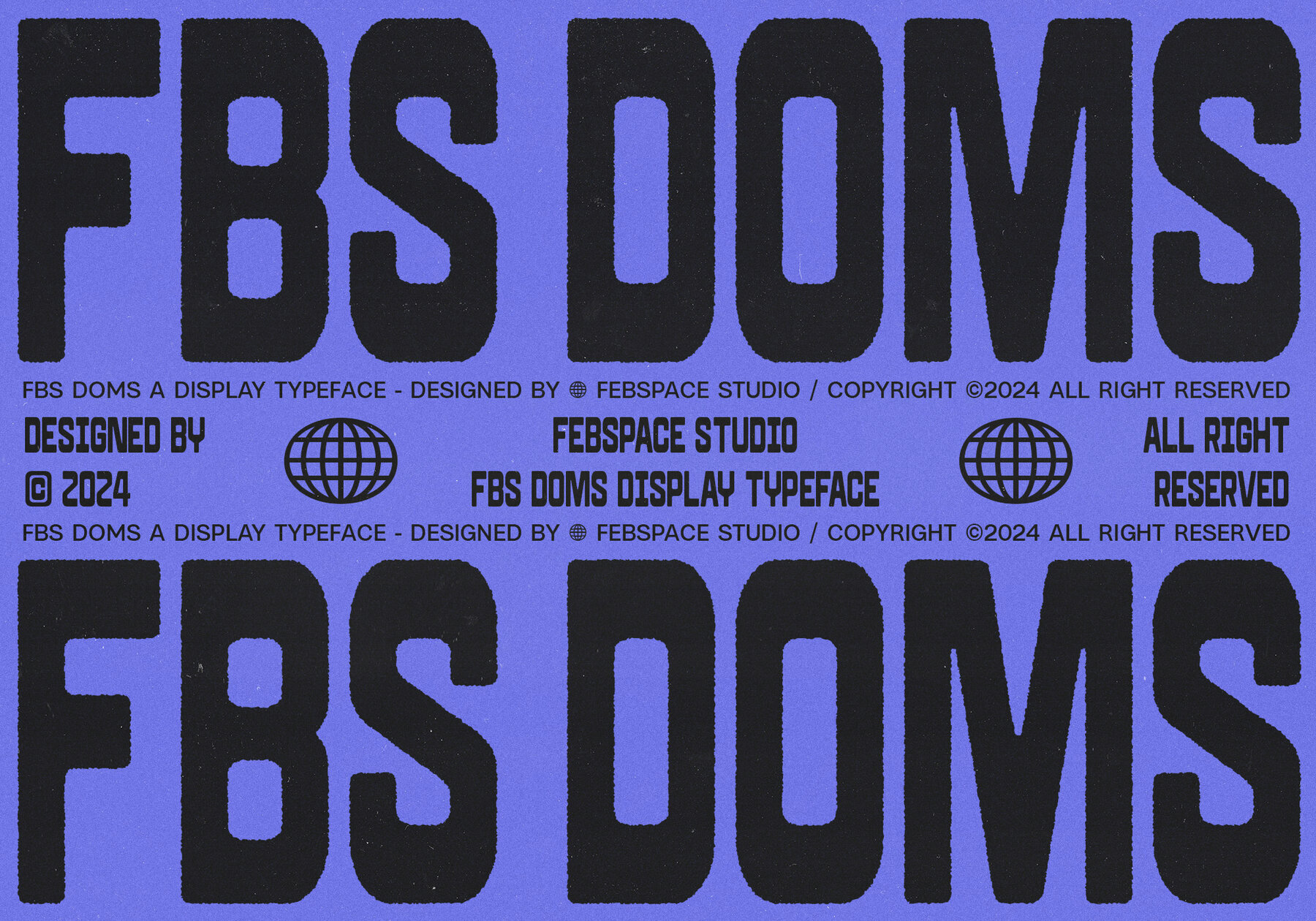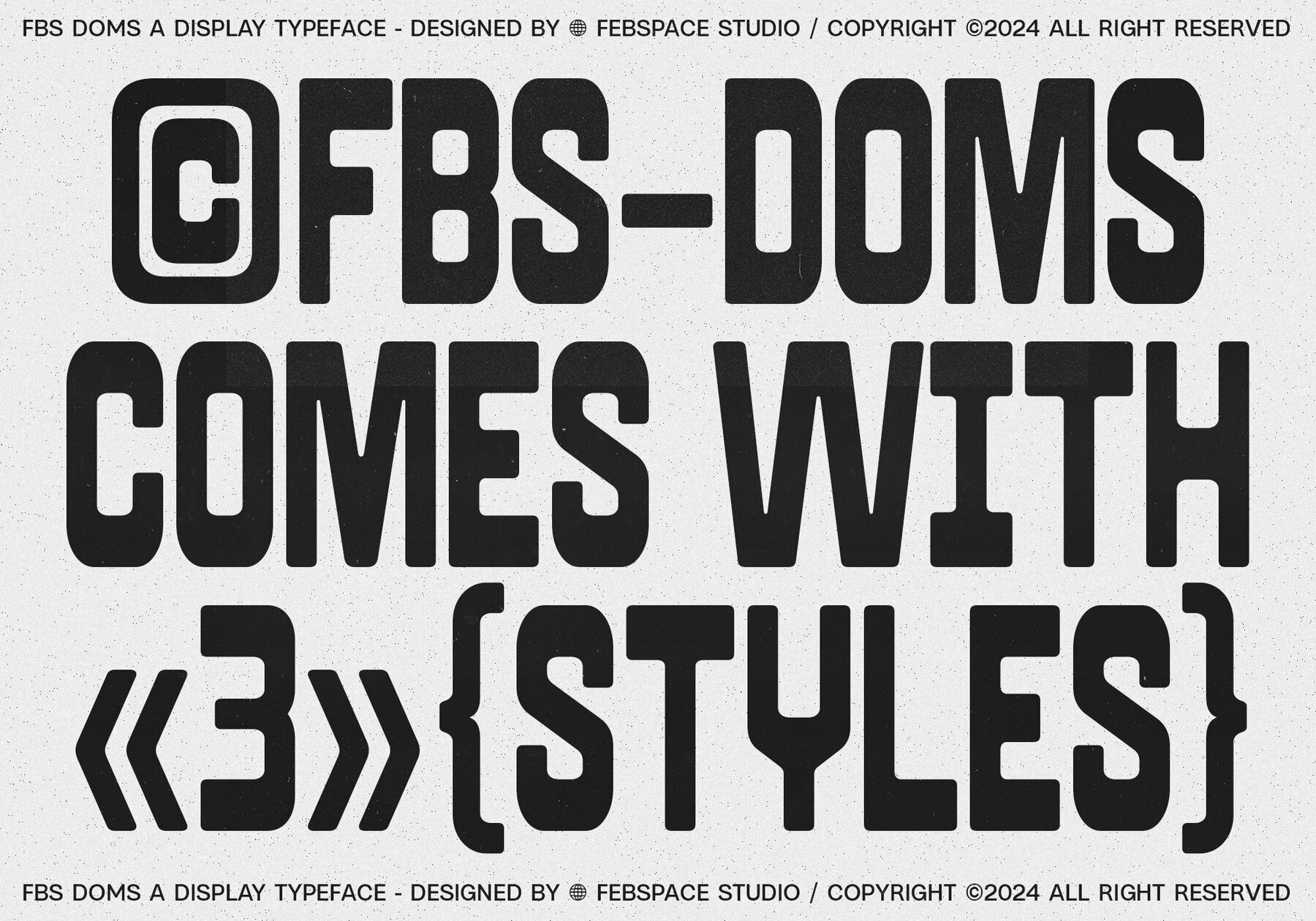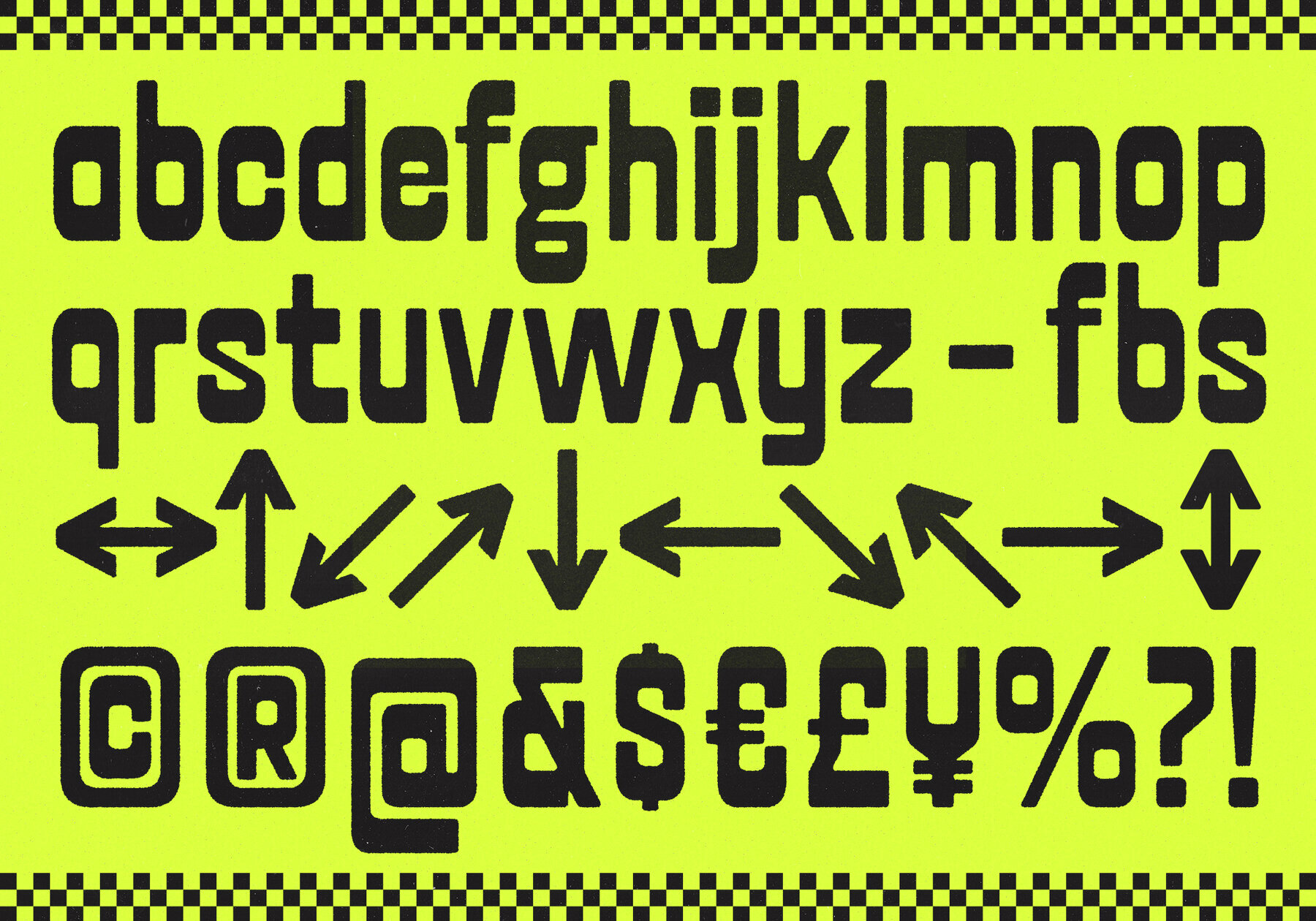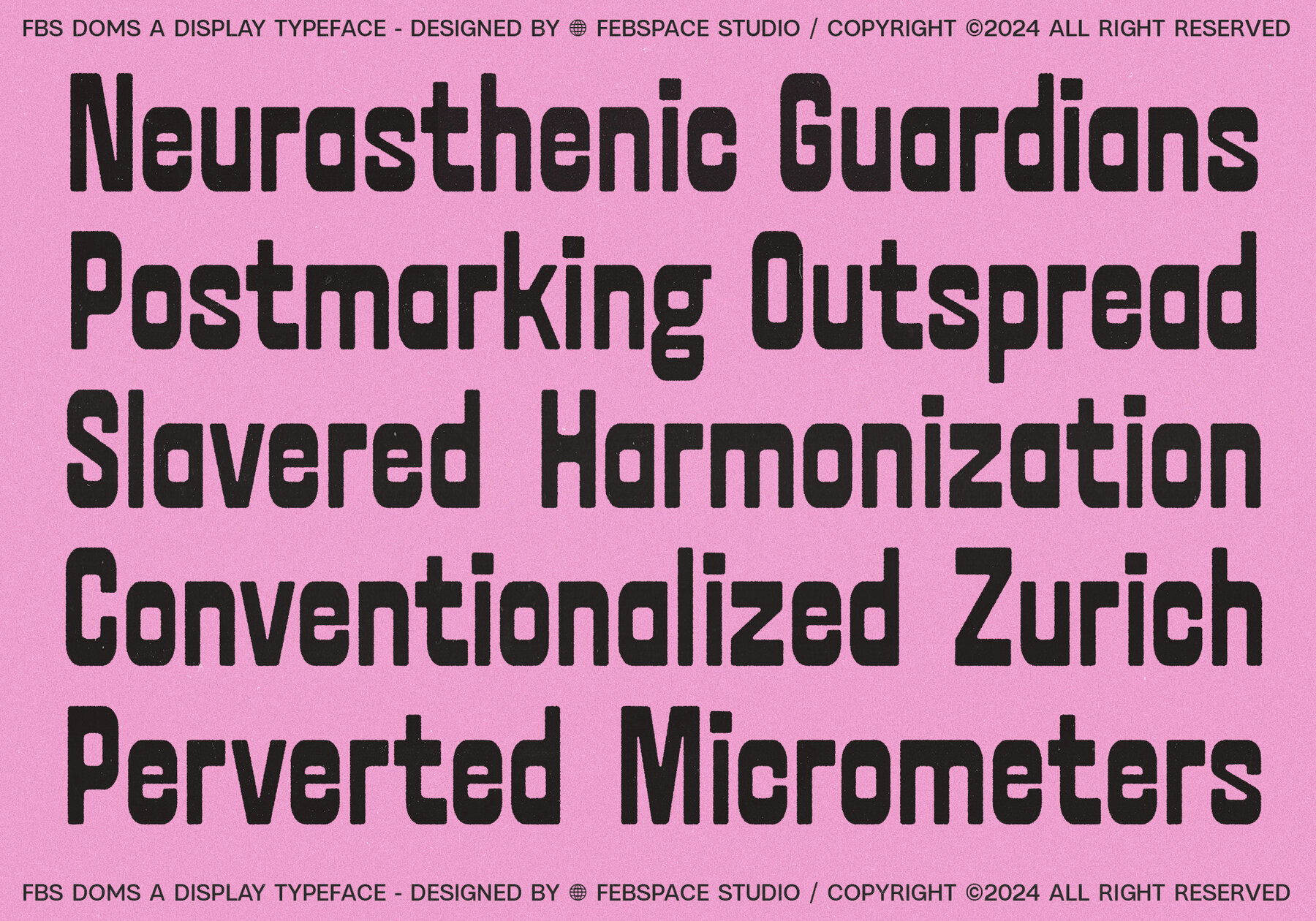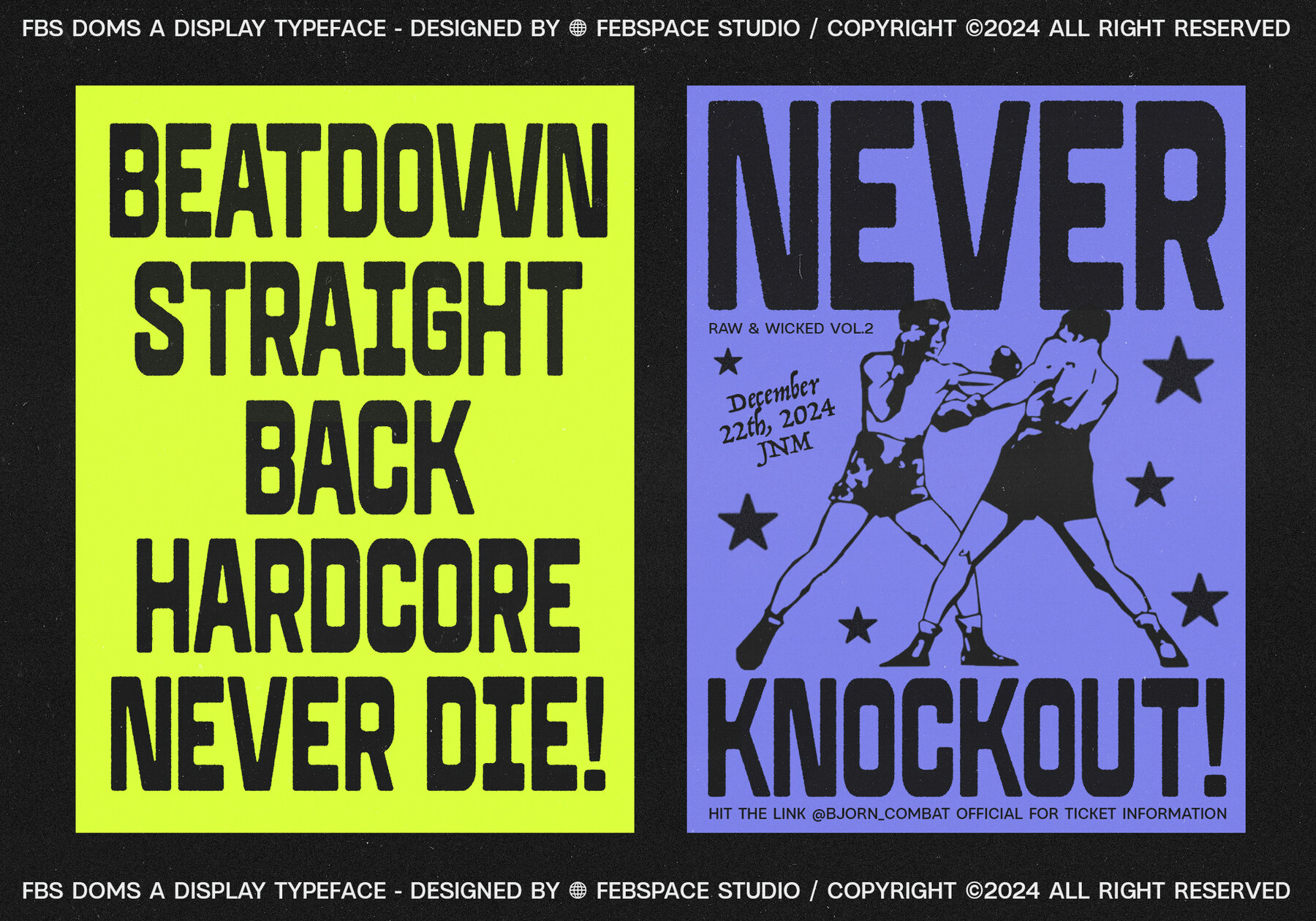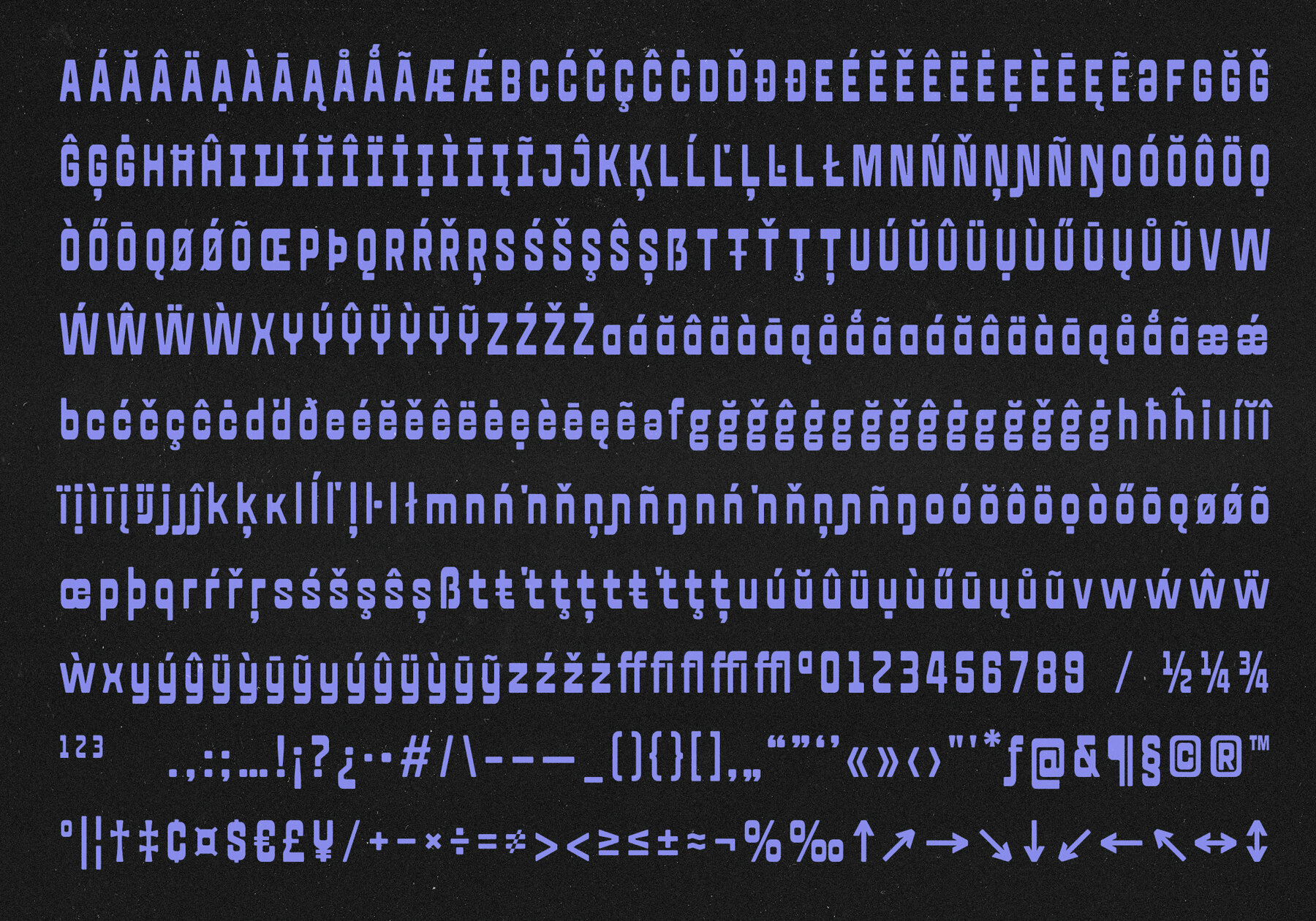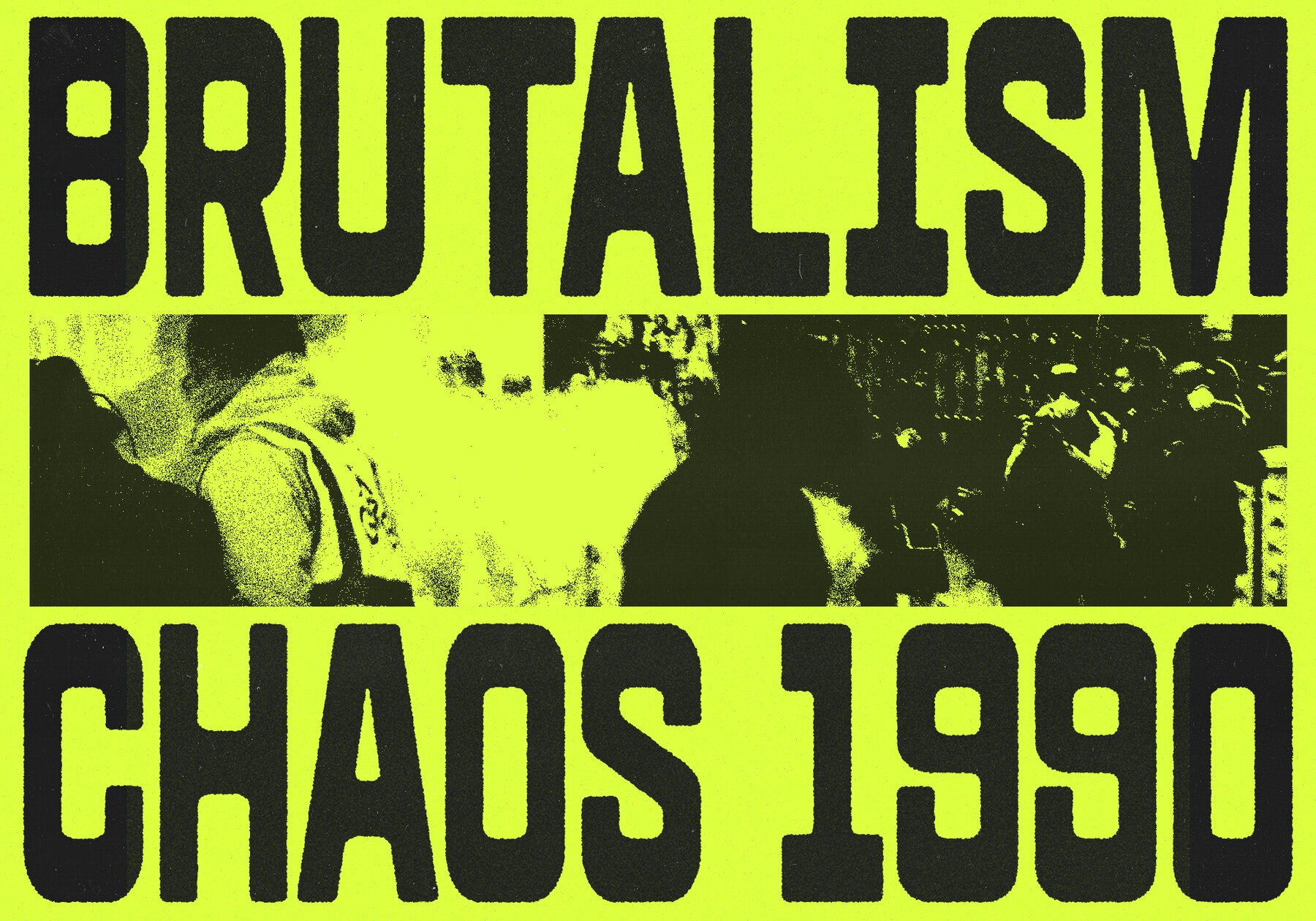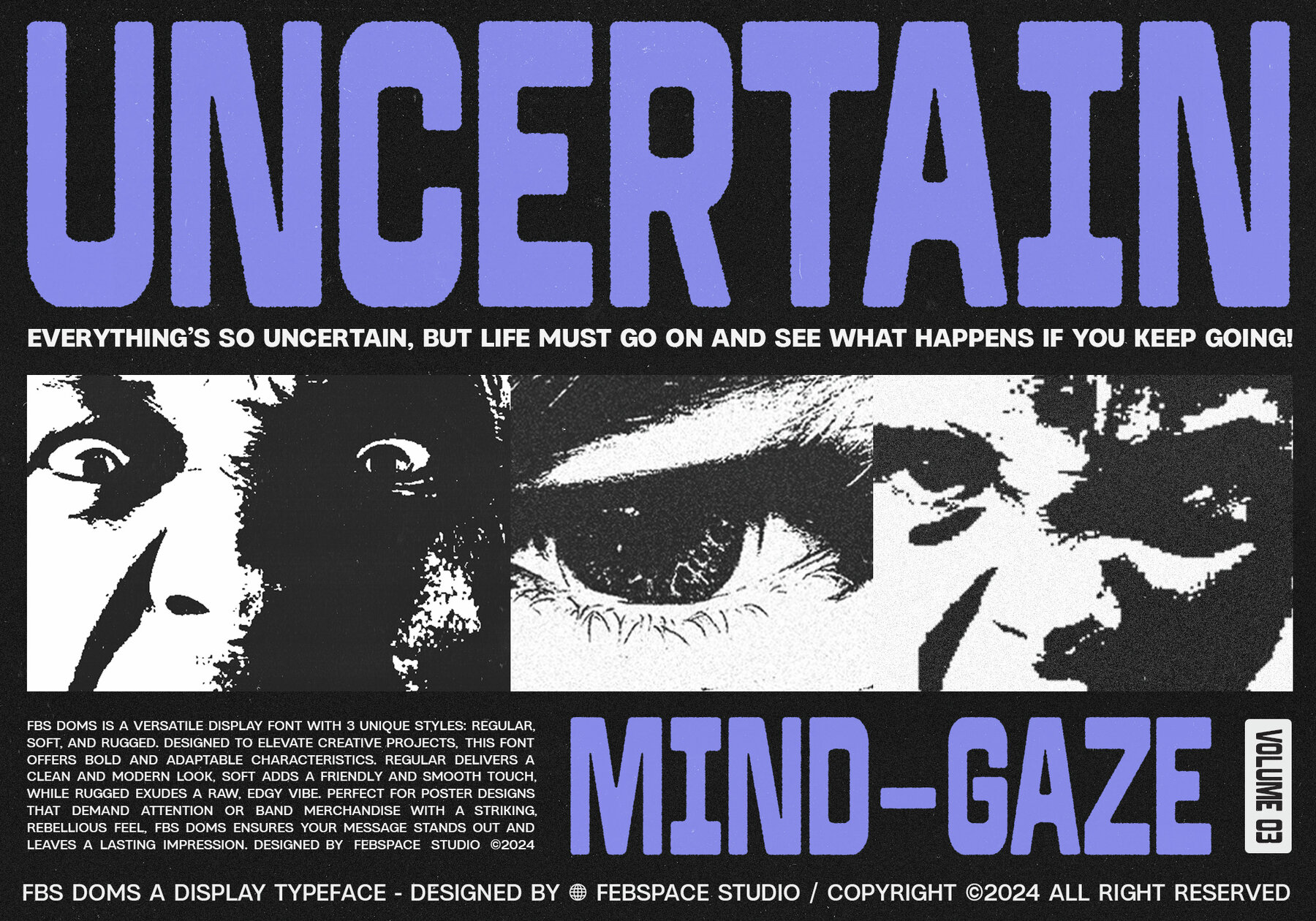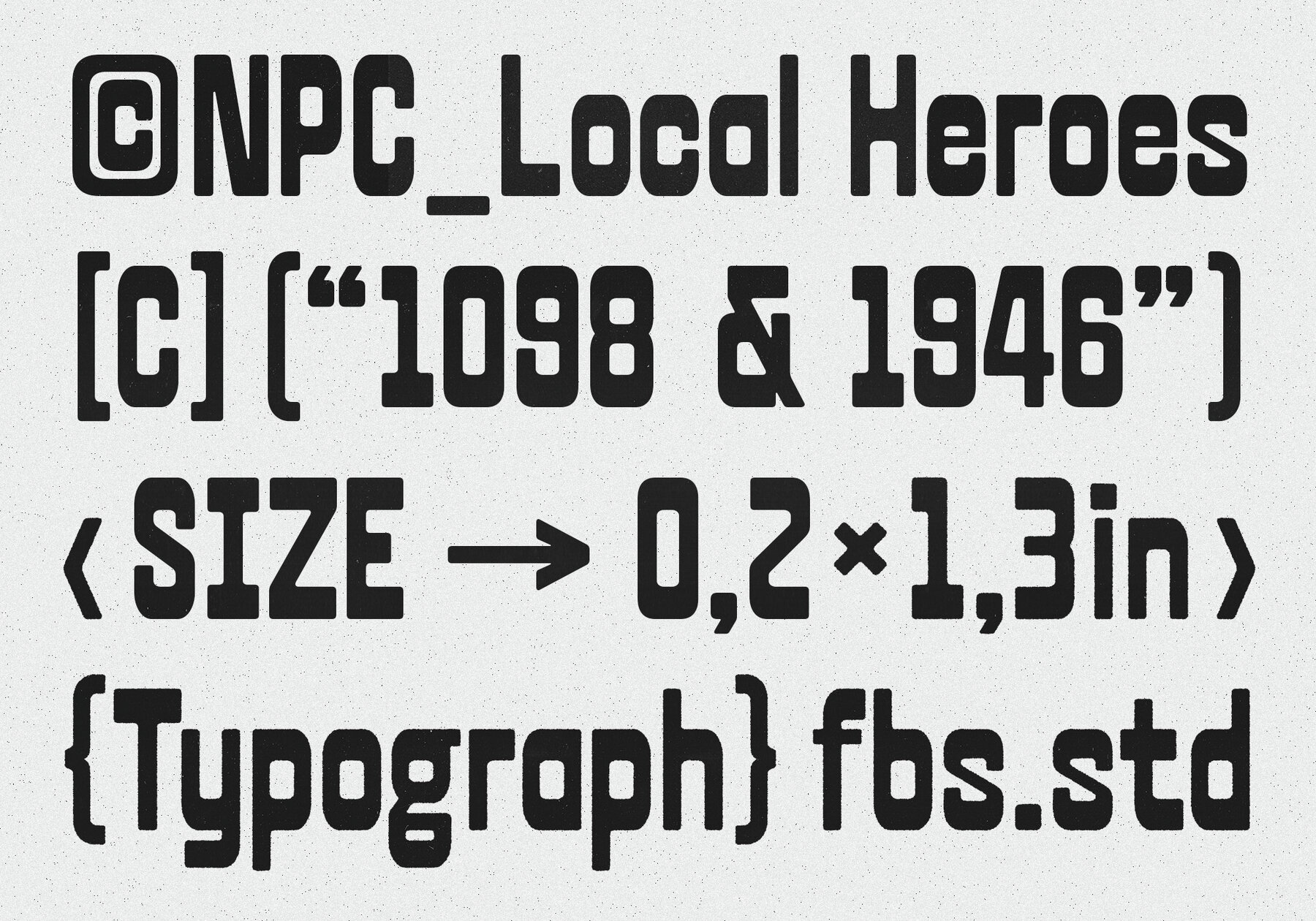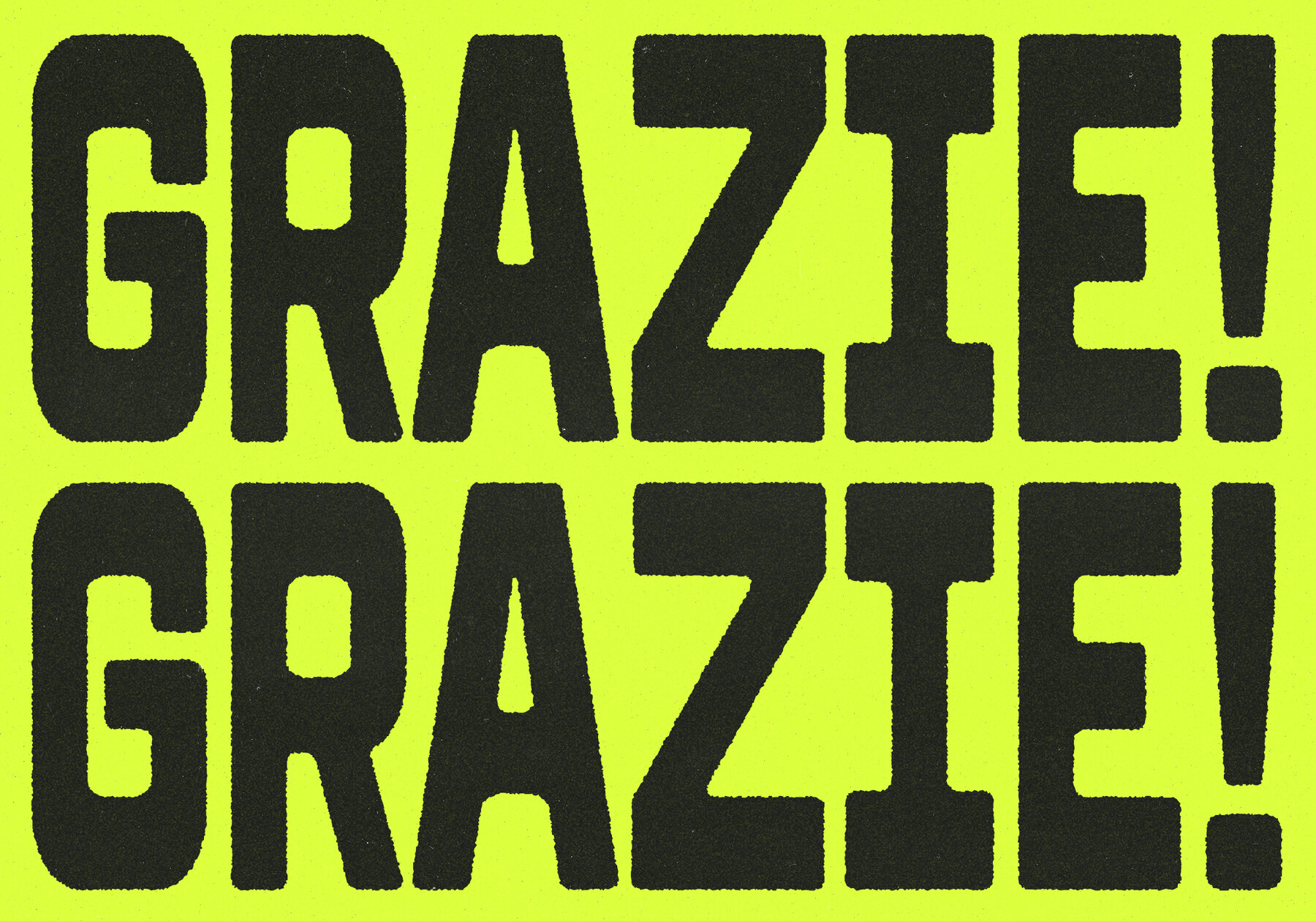
FBS Doms Font
FBS Doms Regular
FBS Doms Rugged
FBS Doms Soft
FBS DOMS offers creative flexibility with its three distinctive styles: Regular, Soft, and Rugged. This font features bold yet adaptable traits, making it a valuable asset for various design projects. The Regular style presents a clean, modern aesthetic. Soft introduces a friendly and smooth appearance, while Rugged delivers a raw, edgy vibe. Ideal for poster designs that demand attention or band merchandise seeking a striking, rebellious feel, FBS DOMS ensures your message captivates and leaves a lasting impression.FBS DOMS: Versatile Display Font
Febspace Studio commands attention with a portfolio that merges bold typographic form with a refined sense of experimentation. Best known for headline typefaces that are both unconventional and meticulously structured, the studio’s work invites a second look—and often, a longer one. Their fonts often carry a r...